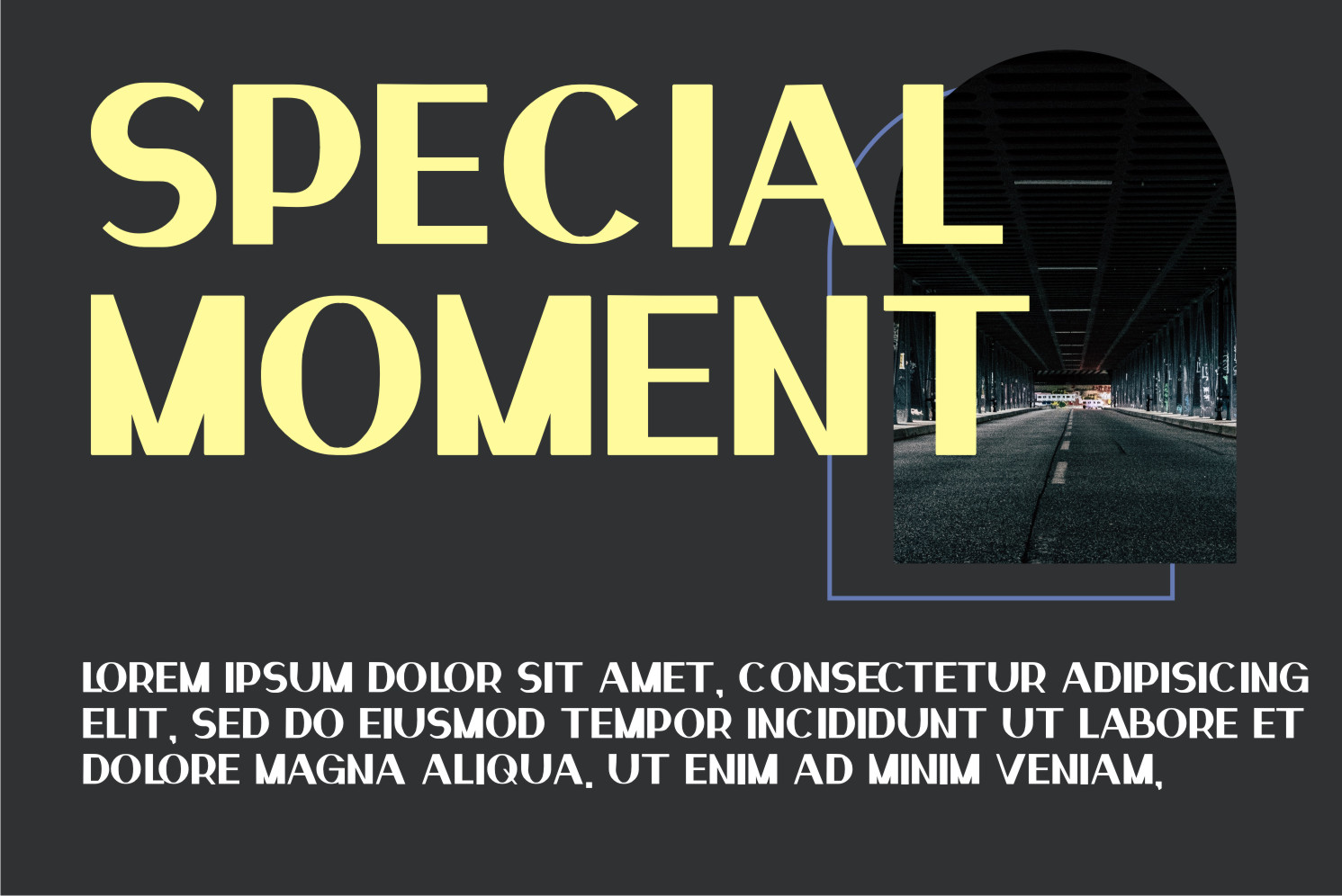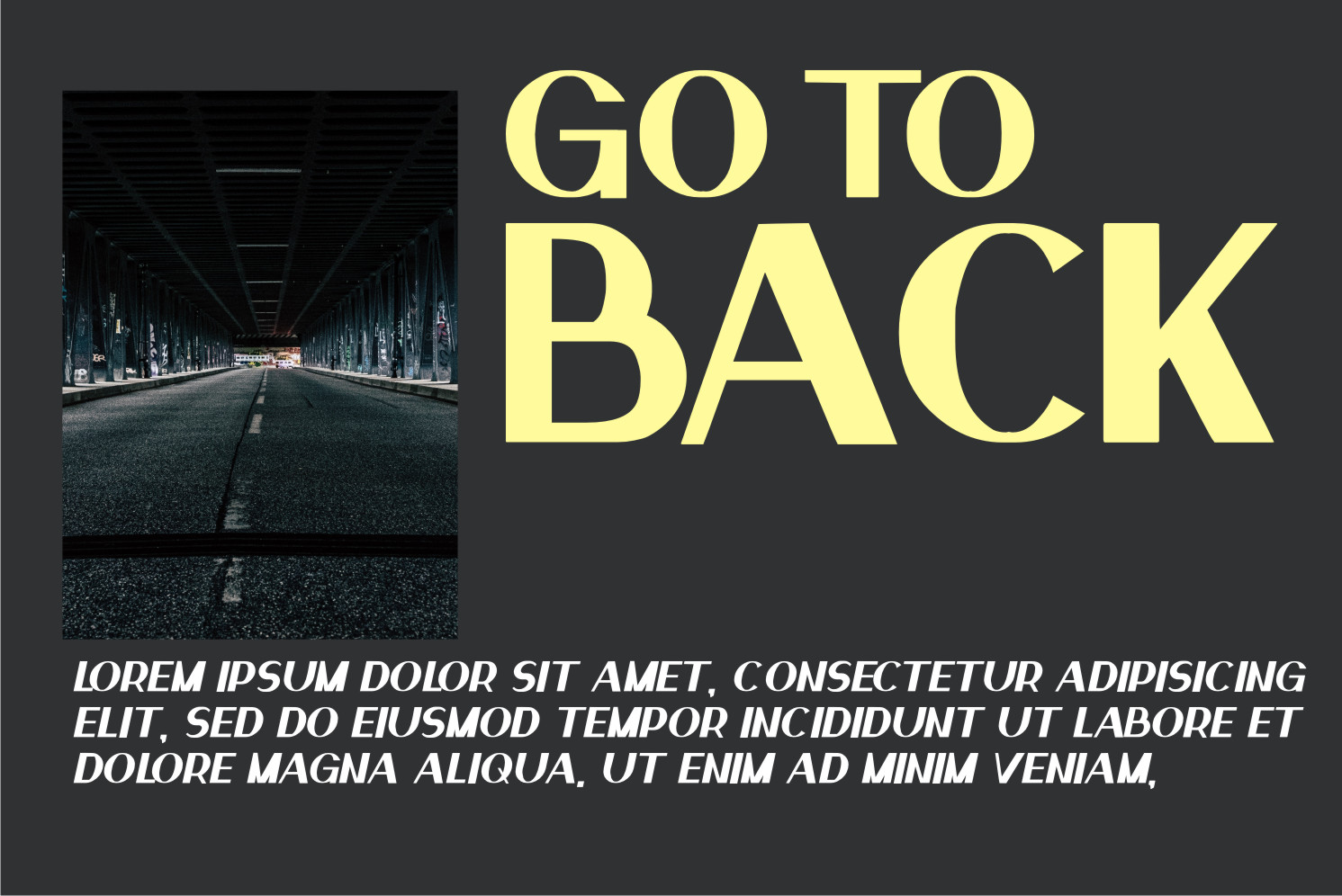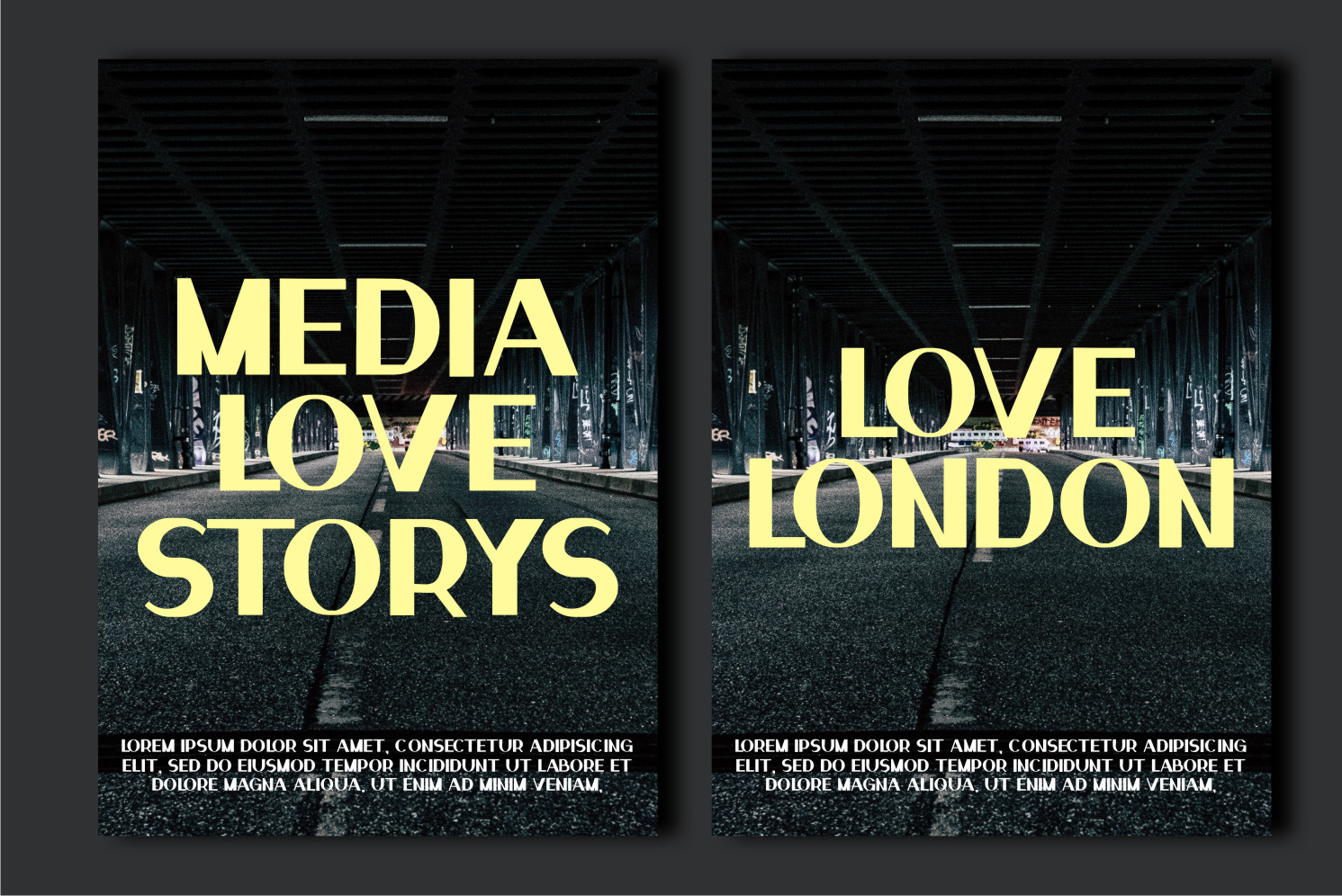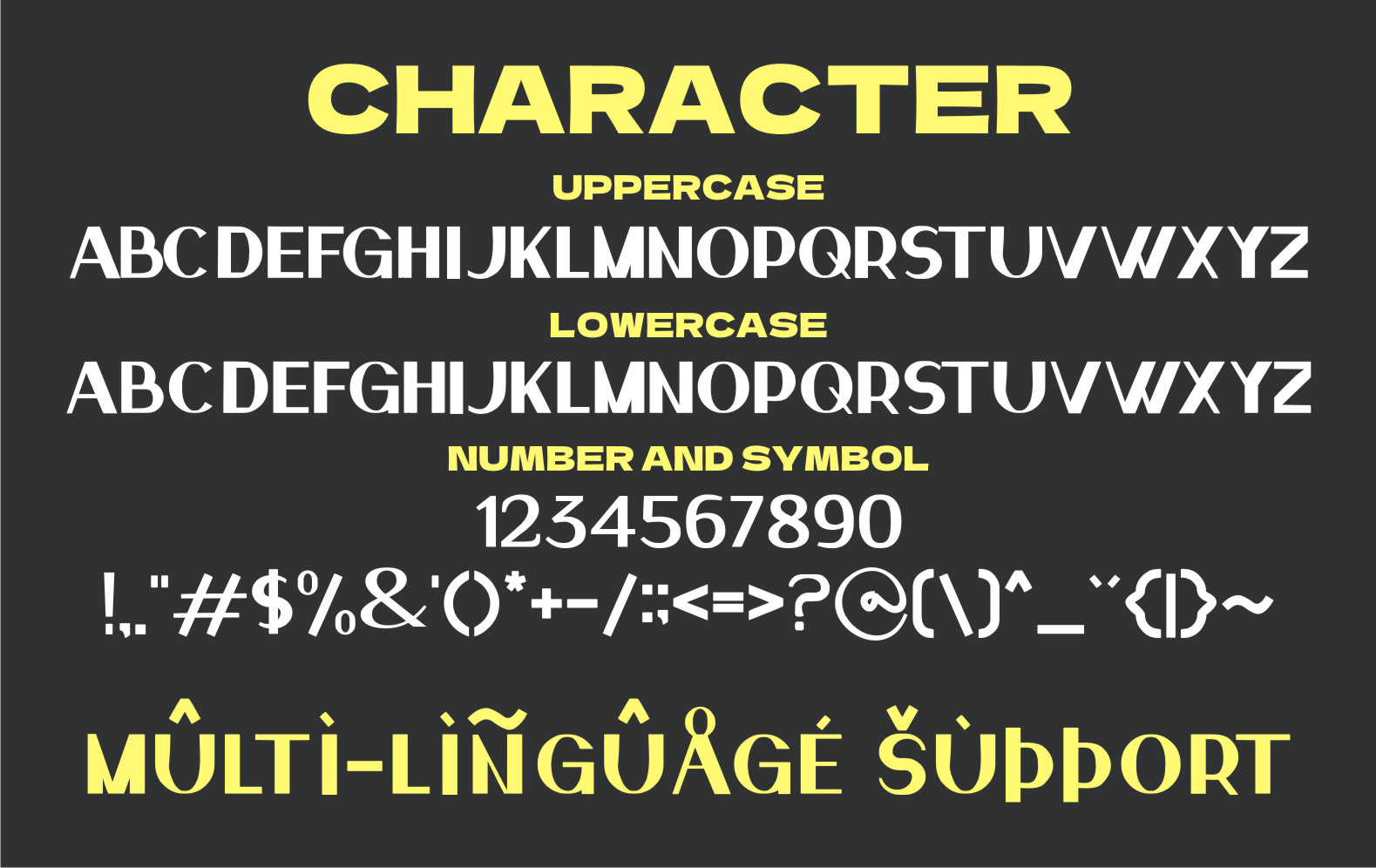
Million Dollar Display Font
It’s a bold and charming display font featuring exquisite characters carved in an extremely stylish manner! Use it for your most creative ideas, and watch how it takes them to the highest levels!